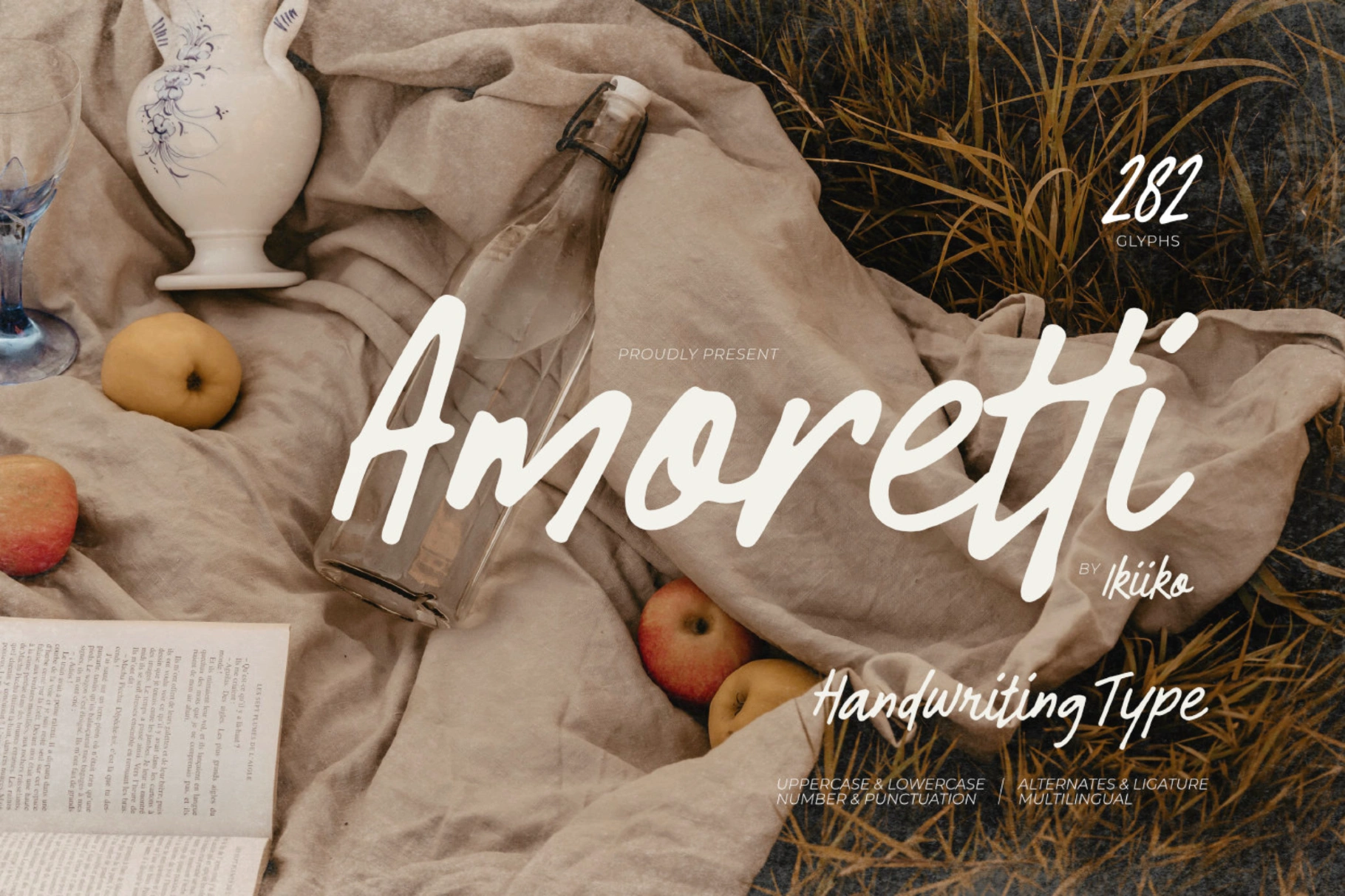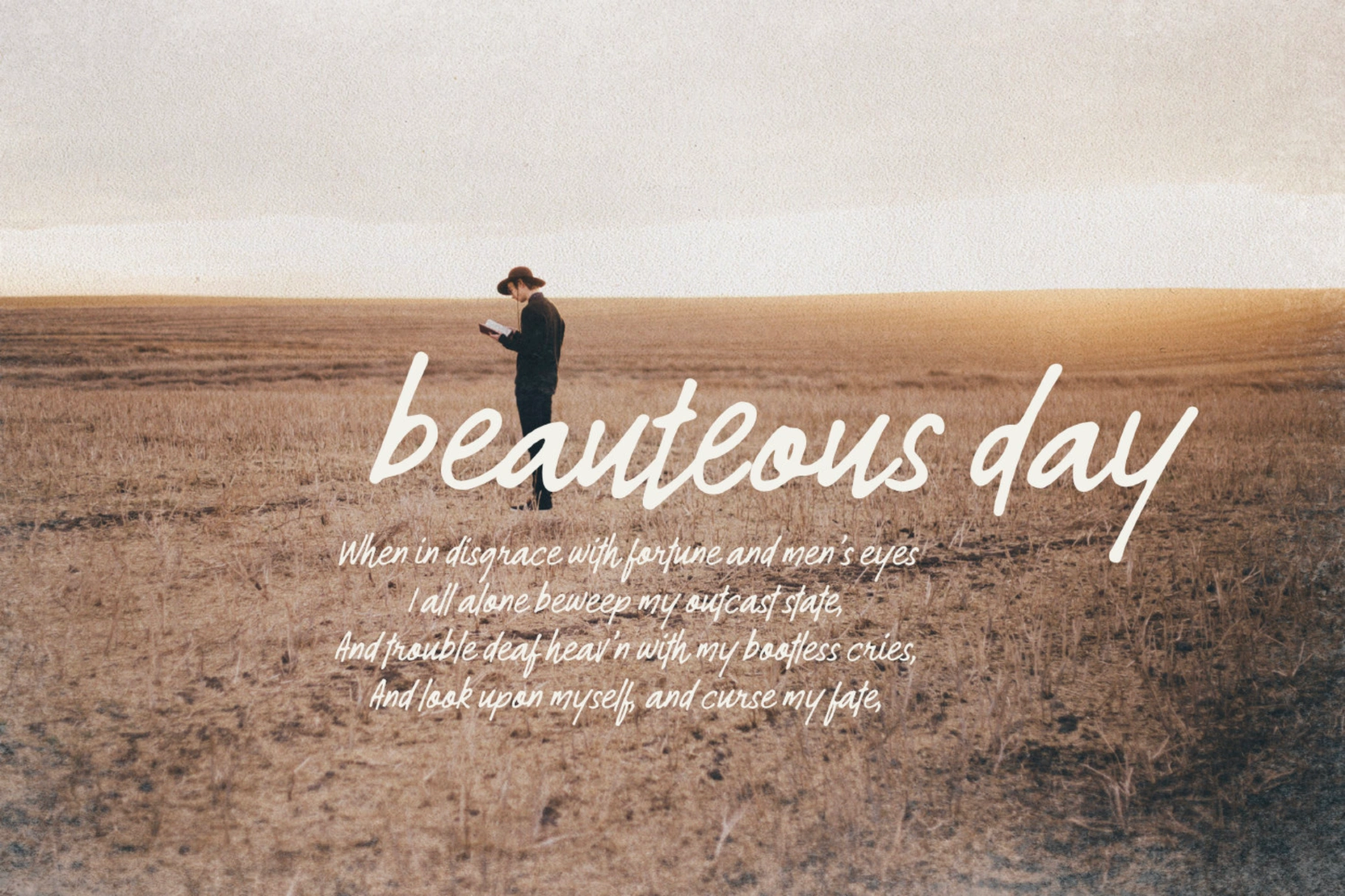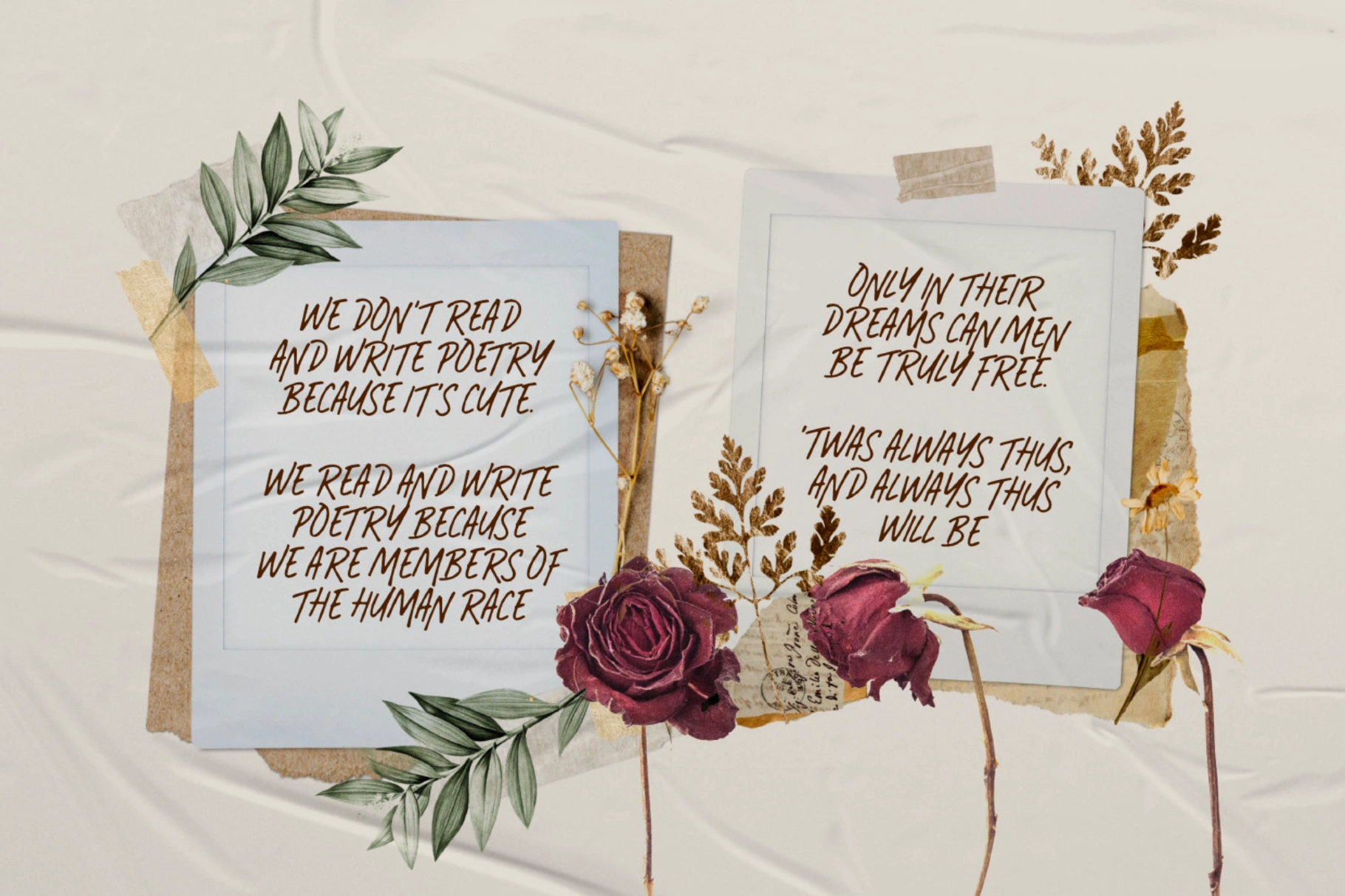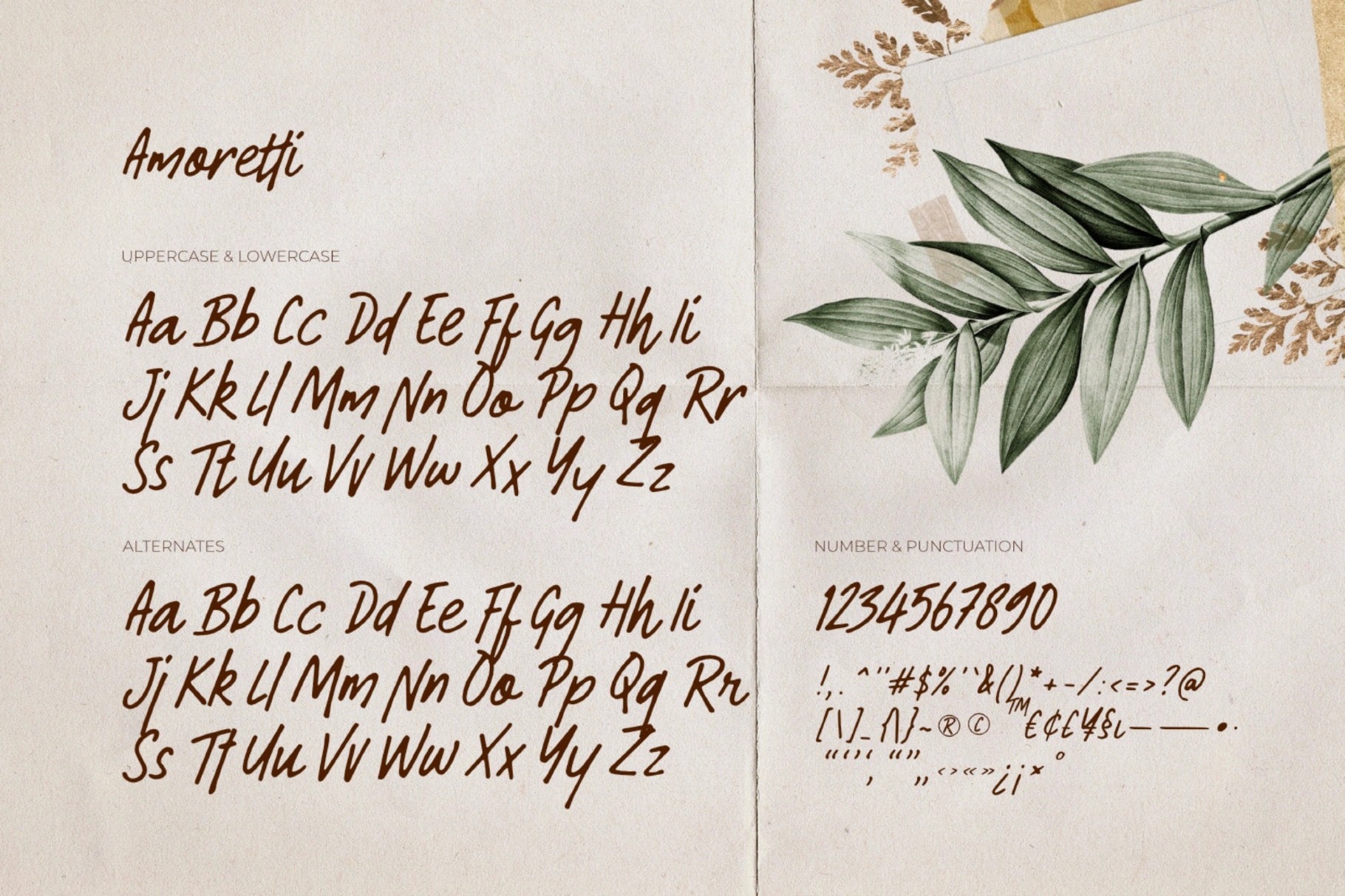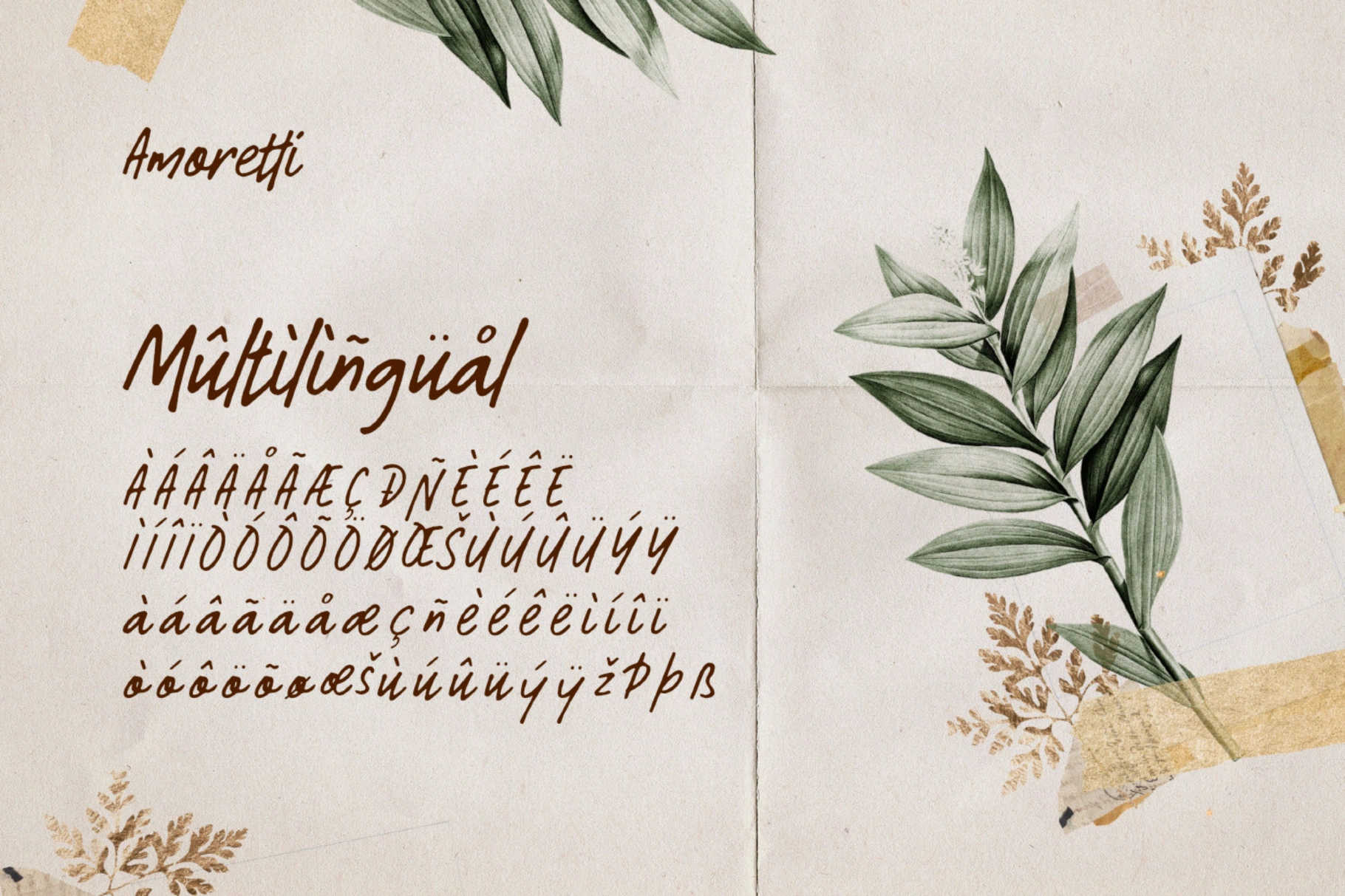
Amoretti - Handwriting Font
Amoretti
Amoretti is an expressionist handwritten typeface whose ethereal and flowing strokes perfectly reflect the soul of a poet's work. The erratic twists and turns give the appearance of an authentic, passionate, and emotional handwritten message. This font have a different iterations of each character were made to accentuate the font's organic appearance and to convey a sense of spontaneity and randomness.
This typeface is perfect for an nature design, feminine layout, wedding & invitation, book cover, and also good for quotes, or simply as a stylish text overlay to any background image.
- Number & Punctuation
- Alternates & Ligature